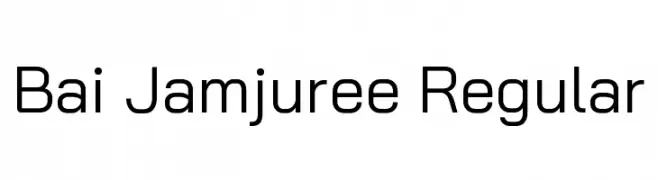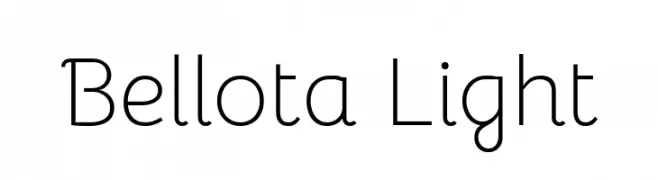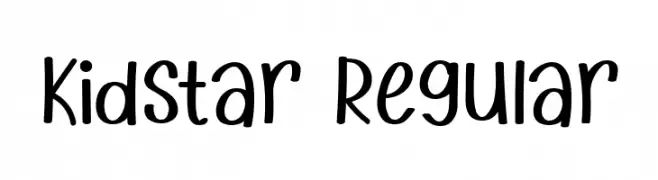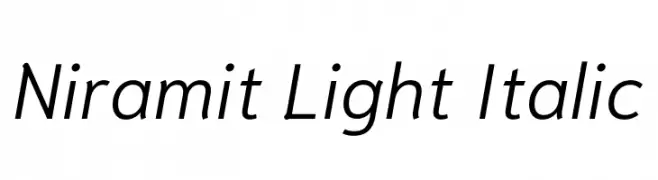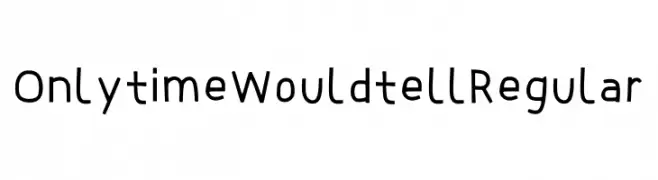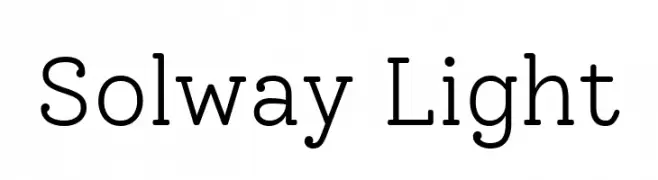
A bold, modern sans-serif font with geometric lines and uniform width.
A playful, rounded font with smooth curves and a friendly appearance.
A playful, handwritten font with a whimsical and friendly style.
A playful, modern font with rounded, smooth characters and a light, airy feel.
A bold, handwritten font with dynamic strokes and a lively appearance.
A modern, geometric sans-serif typeface with medium contrast and excellent readability.
A modern, clean font with a subtle italic slant and consistent stroke width.
A clean, modern typeface with consistent stroke width and excellent readability.